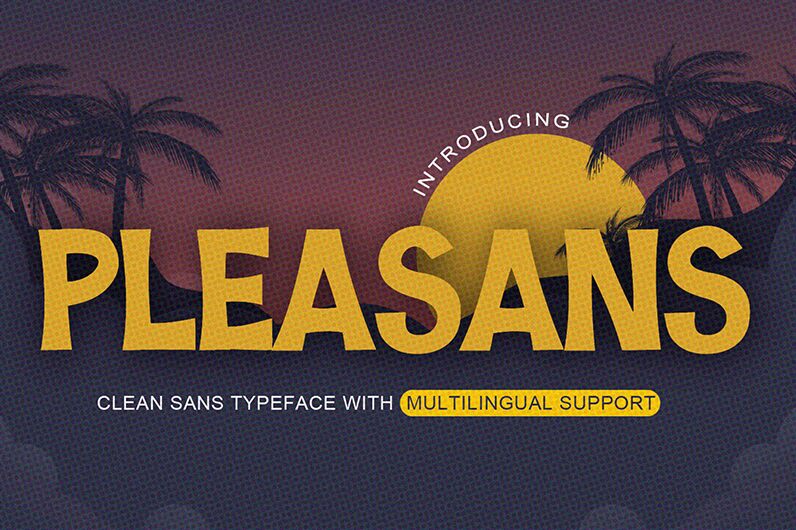
Introducing Pleasans, a bold display typeface designed by Anang F & Malik Wsn of Gassstype© Studio. With its cartoon-like style, this font is perfect for a wide range of creative projects such as comics, logos, and posters.